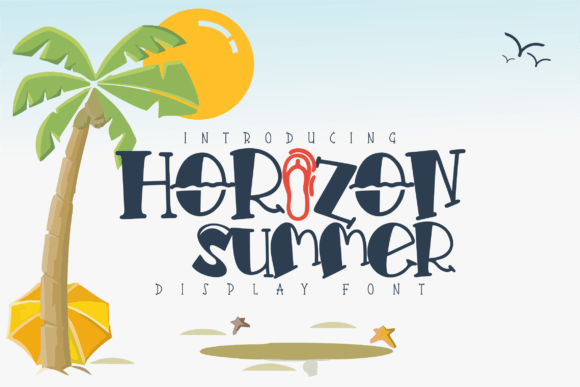
Horizon Summer: The Perfect Typeface for Seasonal Branding
I remember the exact moment I realized my small business needed a visual upgrade. It was late afternoon, and I was staring at a stack of plain white bakery boxes that were about to be filled with our summer fruit tarts. They looked clean, yes, but they lacked soul. They didn't capture the pulsating spirit of summer that our customers loved about the season. We were using a standard sans serif font that felt too corporate for a place that prided itself on fresh, handcrafted treats. That is when I decided to test Horizon Summer, an effervescent display font designed to bring exactly that kind of energy to your brand.
As a creative consultant who has helped dozens of small businesses refine their identity, I have learned that typography is not just about reading text; it is about setting a mood before a customer even reads a single word. This review explores how this specific typeface can transform your business materials from generic to memorable, based on my hands-on experience applying it to real-world branding projects.
How Horizon Summer Brings Vivacity to Product Packaging and Labels
Horizon Summer immediately stands out as a display font because it refuses to blend into the background. When I first opened the file to design new labels for our seasonal candle collection, I was struck by how the characters seemed to dance. The description promises a font that breathes life into summer moments, and that is exactly what happened on the glass jars. Unlike rigid, blocky fonts that often feel cold or industrial, this typeface orchestrates fun and distinctive characters that feel organic and inviting.
I tested the font on various label sizes, from tiny jar stickers to larger shipping boxes. The legibility remained high even at smaller sizes, which is crucial for product packaging where space is limited. By using Horizon Summer for the product name and flavor, the items instantly looked more premium and cohesive. It solved the problem of my previous branding looking disjointed across different platforms. Whether you are a boutique owner creating hang tags or a food seller updating packaging, this font provides the visual consistency that builds trust. It tells the customer, "We pay attention to details," without you having to say a word.
Why Horizon Summer Elevates Social Media Graphics and Digital Ads
In today's digital landscape, your social media graphics are often the first point of contact with a potential customer. I recently updated our Instagram templates for a summer promotion, and the difference was night and day. Before, we used a standard font that got lost in the feed. After switching to Horizon Summer, our posts gained a distinct personality that aligned perfectly with the vivacity of the season.
This font excels in short phrases and headlines, making it ideal for Instagram stories, Facebook ads, and website banners. Because it is a display font, it commands attention without requiring heavy graphic elements. I found that pairing the bold, playful nature of Horizon Summer with a clean, minimal background allowed the text to shine. It effectively captures the eye scrolling through a crowded feed, stopping users from tapping away. For online sellers and content creators, this means higher engagement rates and a stronger connection with your audience. The font's ability to convey emotion through shape alone is a powerful tool for storytelling in a 60-second video or a static image post.
When designing digital assets, readability on mobile screens is paramount. I tested Horizon Summer on various screen sizes, and its open counters and balanced stroke widths ensured that the text remained crisp and easy to read, even on smaller smartphone displays. This technical consideration ensures that your marketing efforts are not wasted due to poor typography choices.
Creating Memorable Menus and Event Materials with Horizon Summer
One of the most practical applications I explored was refreshing the menu for a local café collaboration. Menus are often overlooked design opportunities, yet they are critical touchpoints that influence customer spending. Using a generic font made the menu feel like a list of prices rather than an invitation to an experience. Horizon Summer changed that narrative completely.
The font's distinctive character set allows for creative variations in how items are presented. I used the alternate characters to highlight special daily offerings, adding a layer of excitement to the menu. It feels like a handwritten note from a friend, yet it maintains the professional polish required for a commercial establishment. This balance is essential for any business owner looking to elevate their brand identity. Whether you are printing flyers for a summer festival, creating thank-you cards for clients, or designing event signage, this typeface adds a layer of warmth and hospitality that customers appreciate.
For those concerned about font pairing, I recommend combining Horizon Summer with a simple sans serif font for body text. This combination creates a beautiful contrast: the display font grabs attention for titles and headers, while the clean supporting font ensures long paragraphs remain readable. This strategy helps maintain a professional look across all your design assets.